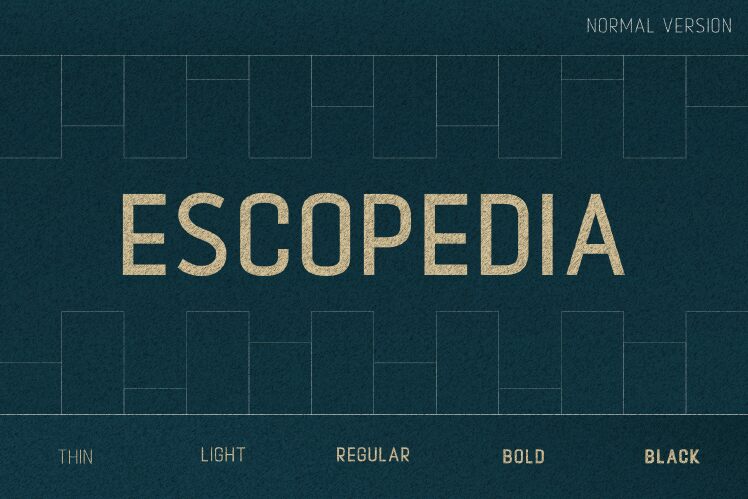
Escopedia Thin font by Nandesign Studio is an elegant and condensed sans serif font. This light geometric typeface is built on a minimalistic construction for modern and contemporary applications. Each of the characters is streamlined with perfect circles and smooth strokes. The overall design also exhibits a clever usage of angles, both curvilinear and right.
Free to download, the font offers many possible use cases in branding where your logo design can benefit from its clean letters. Use it as well in poster designs, magazine artworks, packaging design, signage texts, social media covers or posts, websites headers or pages’ body text blocks.